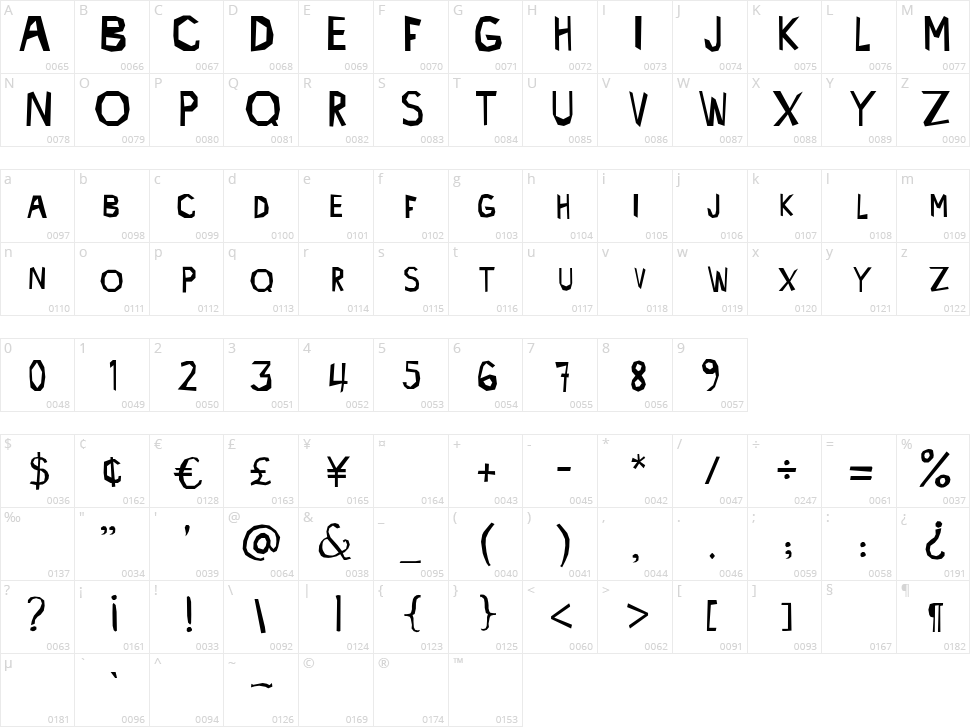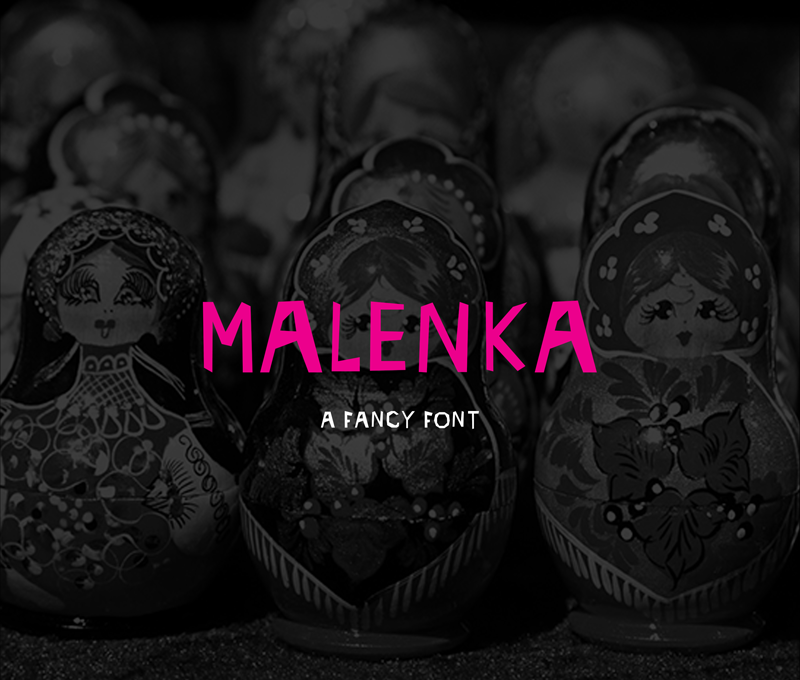
Malenka is a sans serif geometrical typeface. It features friendly and allows letters to be settled into their natural width. I called it "Malenka", because my Russian grandmother used to call me like that as a child.
The project was designed by Adriana Mazurek, Graphic designer.